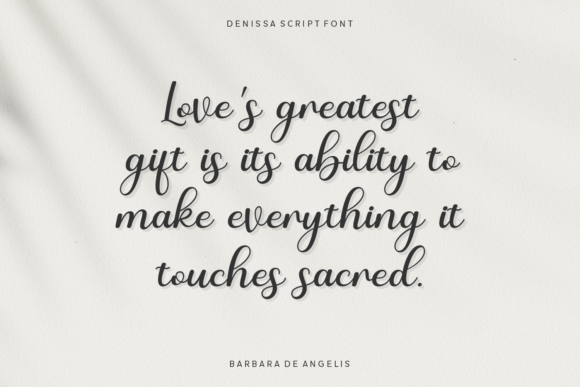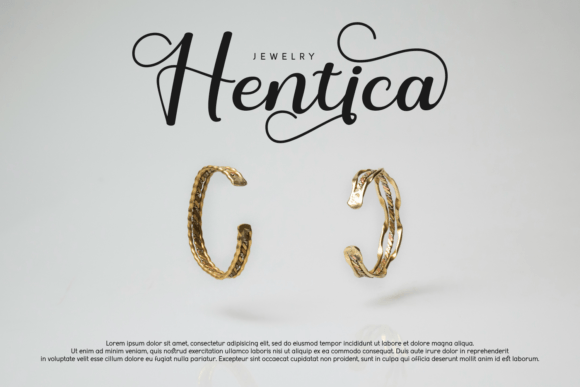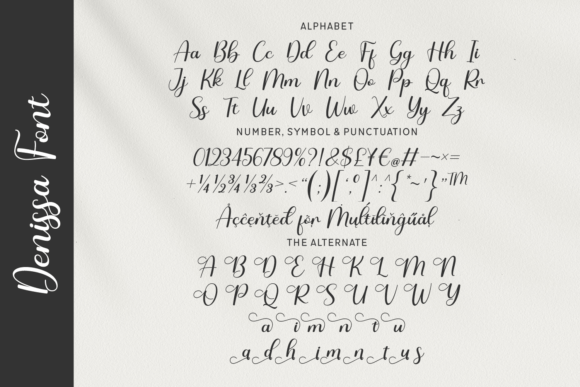
The Designer’s Delight: Uncovering the Charm of Denissa Font
I’ll never forget the time I was working on a wedding invitation project, and my client asked for a font that was both elegant and playful. I scoured the internet, tried out countless fonts, but nothing seemed quite right. That was until I stumbled upon Denissa Font. Its bold, curly swashes and flowing letters instantly captured the essence of what I was looking for. In this article, I’ll share my experience with Denissa Font, its features, and how to make the most of it in your designs.
A First Impression: What I Love About Denissa Font
Denissa Font is a bold script font that exudes a lively and elegant vibe, making it perfect for invitations, greeting cards, and any design that needs a touch of personality. Here are some things I love about it:
- ✨ Playful curly swashes: Denissa’s swashes add a touch of whimsy to any design, making it perfect for creative projects.
- ✅ Elegant flow: The font’s flowing letters create a sense of movement and fluidity, adding to its elegance.
- 🎉 Versatility: Denissa Font can be used for a wide range of projects, from formal invitations to casual greeting cards.
Honest Review: A Few Quirks to Consider
While Denissa Font is an excellent choice for many projects, there are a few quirks to consider:
- 🤔 Legibility at small sizes: Denissa Font can be a bit tricky to read at small sizes, so it’s best to use it at larger sizes or for headlines.
- ⚠️ Limited use in body text: Due to its bold and curly nature, Denissa Font may not be the best choice for body text, especially for longer paragraphs.
How to Use Denissa Font: A Practical Guide
The Story Behind Denissa Font
Denissa Font was designed by a team of typographers who wanted to create a font that was both elegant and playful. Inspired by traditional calligraphy, they crafted a font that features bold, curly swashes and flowing letters. The result is a font that’s perfect for designers, crafters, and creative hobbyists who want to add a touch of personality to their projects.
| Font Name | Denissa Font |
| What is Denissa Font? | Denissa Font is a bold script font featuring playful curly swashes and flowing letters. |
| What is Denissa Font best used for? | Denissa Font is perfect for invitations, greeting cards, and any design that needs a touch of personality. |
| Is Denissa Font suitable for body text? | No, Denissa Font is best used for headlines or titles, as it can be tricky to read at small sizes. |